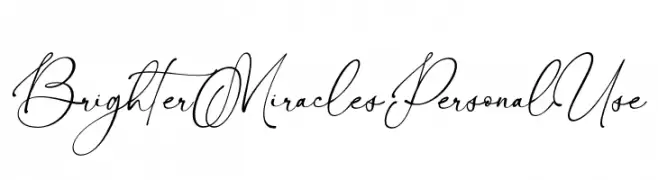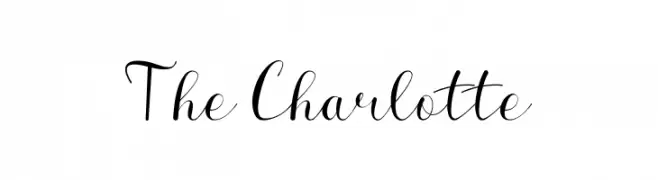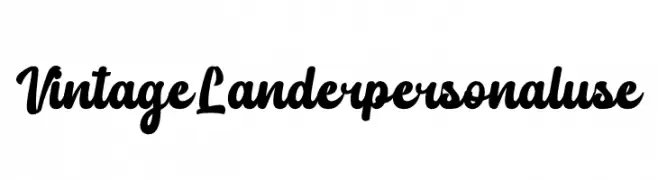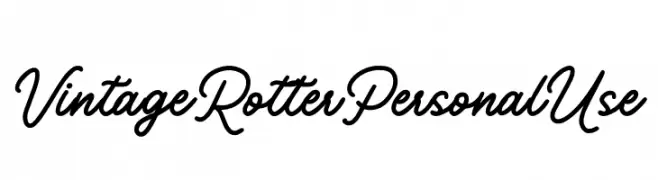
An elegant, flowing script font with graceful curves and ornate details.
Elegant calligraphic font with graceful swashes and dynamic contrast.
An elegant script font with flowing cursive letters and ornate flourishes.
A vintage script font with bold, flowing characters and a classic elegance.
A vintage script font with elegant, flowing lines and a classic charm.
A graceful script font with flowing, ornate letters and high contrast strokes.
A playful, heart-embellished decorative font with bold, rounded characters.
An elegant script font with fluid, cursive strokes and ornate uppercase letters.
A graceful and elegant script font with fluid, cursive strokes.
An elegant script font with flowing, cursive letterforms and sophisticated style.